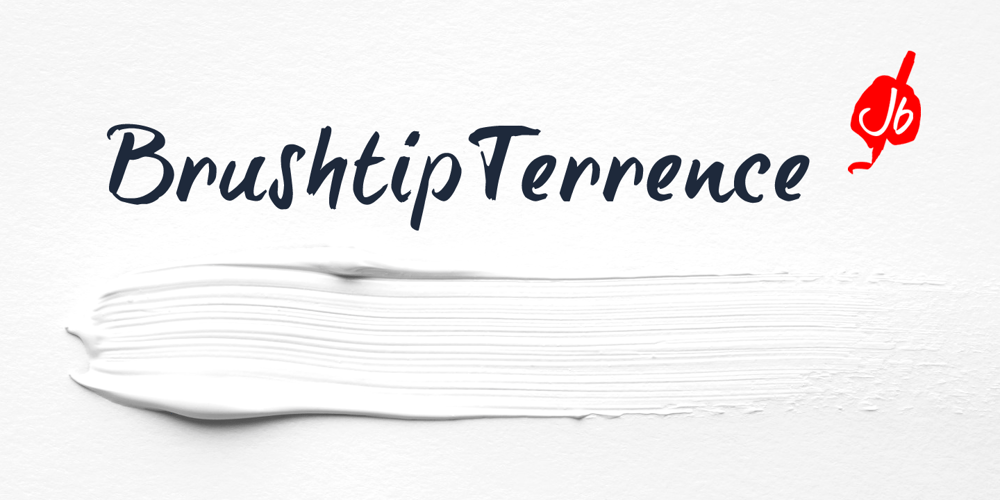
BrushtipTerrence Font Family was designed by Jeroen “Joebob” van der Ham and published by JOEBOB graphics. BrushtipTerrence contains 1 styles and family package options. A spontaneous, fresh, honest and non-doctored brush script font with an almost complete set of extra characters. Excellent for people that want to put their statement on the wall, but don’t have the hand for it, but it’s also great for use in poster design, bookcovers and scrapbooking.